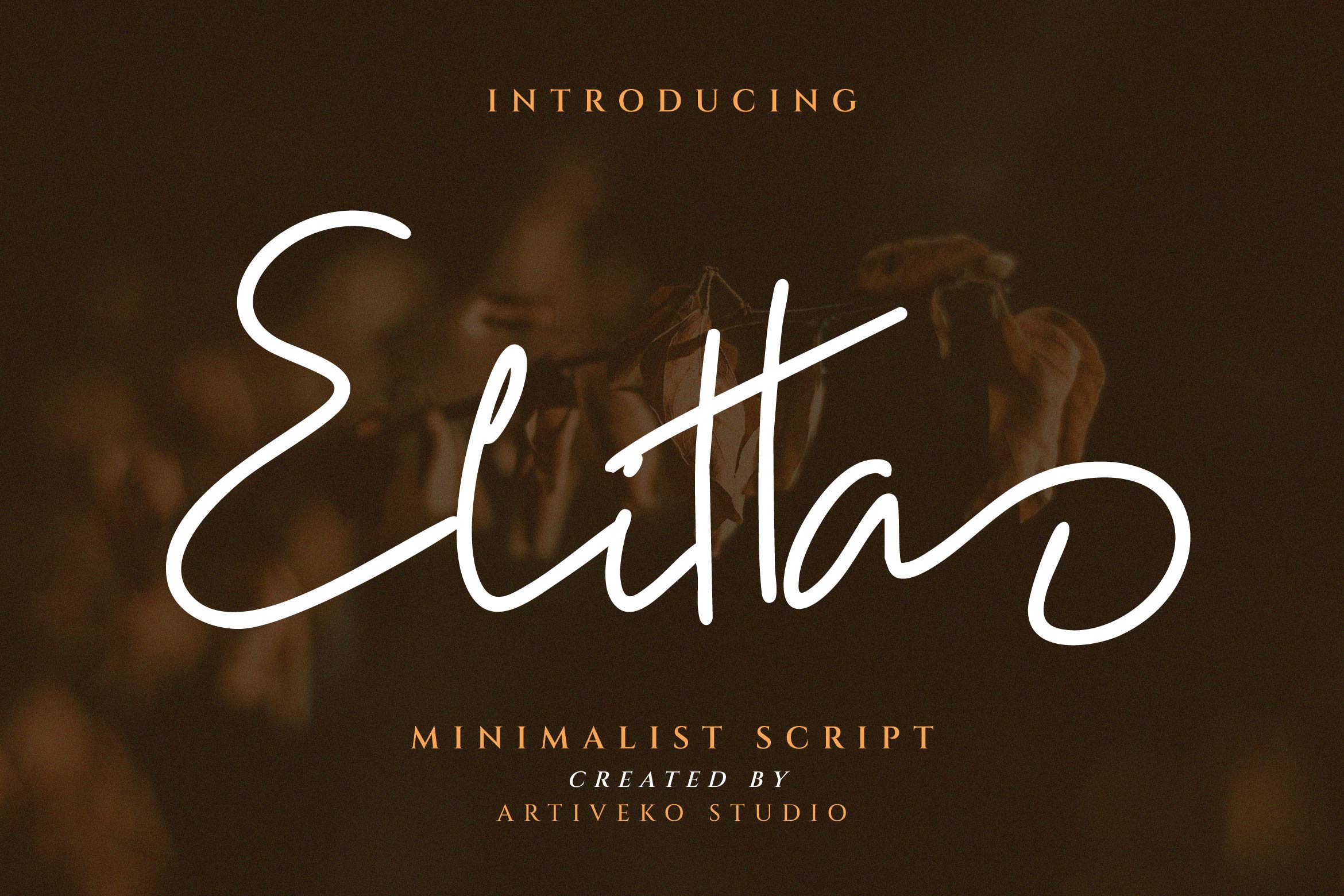
Elitta Signature Script Font
Elitta is an elegant handwritten script font designed to bring a personal and sophisticated touch to your projects. With its fluid strokes, smooth curves, and natural flow, Elitta creates a sense of warmth and refinement that’s perfect for wedding invitations, branding, product packaging, greeting cards, and social media graphics.
The font includes uppercase and lowercase letters, numerals, punctuation, multilingual support, and a beautiful collection of ligatures and stylistic alternates to give your typography a truly custom look.
Whether you’re designing a chic logo, romantic stationery, or stylish digital content, Elitta combines beauty and authenticity for an effortlessly modern aesthetic.
Let your words shine with Elitta — the script font that blends elegance, creativity, and a human touch.